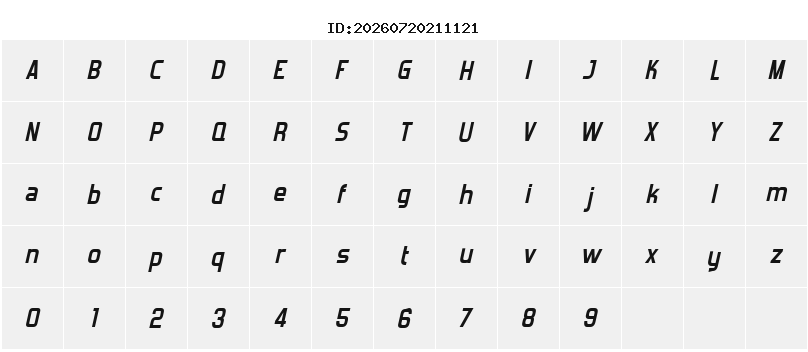
• Font Name: Forgotten Futurist
• Font ID: RayLarabie: Forgotten Futurist: 1999
• Full Font Name: Forgotten Futurist Bold Italic
• Designer: Ray Larabie
• Description: This version was revised in March of 2000 using FontLab.
About Forgotten Futurist.ttf
Forgotten Futurist.ttf is a modern, elegant sans-serif font designed for ultimate readability and visual harmony. Perfect for branding, headlines, web design, and print materials.